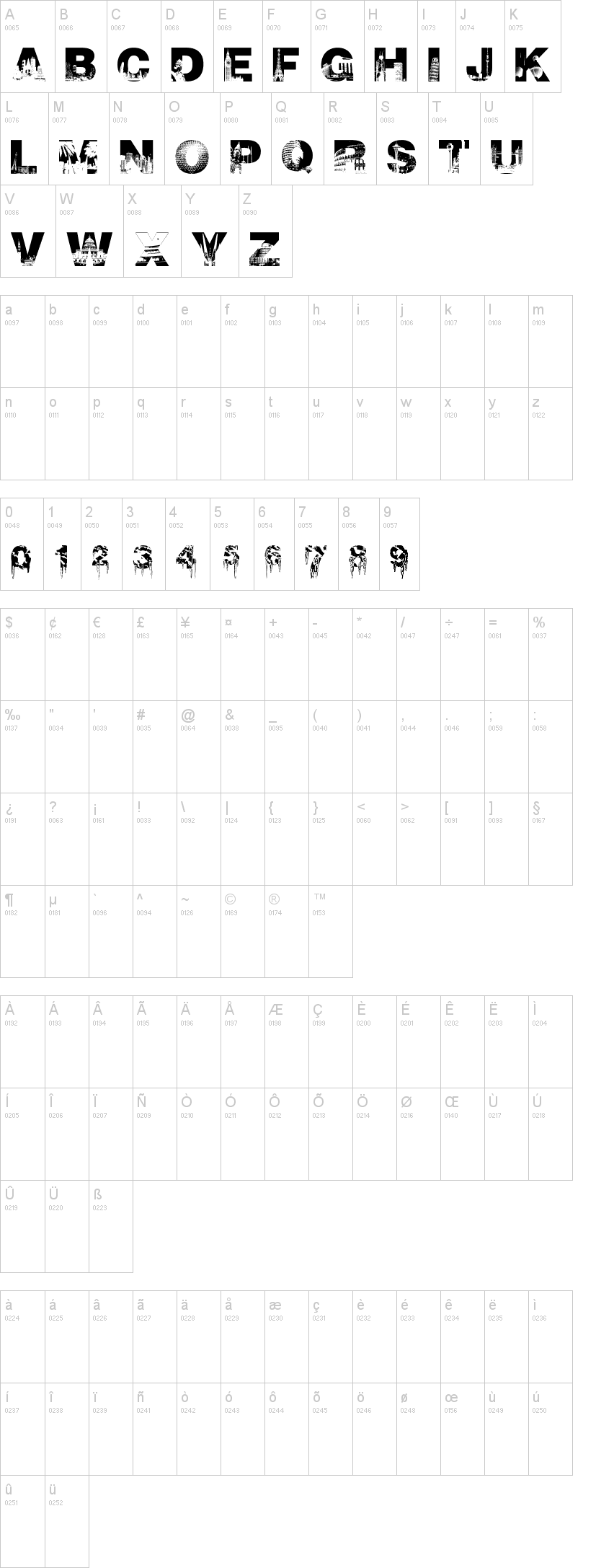
Note of the authorall 26 letters, only Capital letters, Frozen Numbers included, please let me know if you are going to use it for anything commercial or at least give me some credit. hope you enjoy :)I've had a few questions about what city/country each letter stands for:
A-atlanta B-boston C-chicago D-denver E-england F-france G-greece H-hong kong I-italy J-japan K-kuwait towers L-las vegas M-miami N-new york city O-orlando P-philadelphia Q-qatar R-rome S-seattle T-texas U-united kingdom V-venice W-washington dc X-xian(china) Y-yugoslavia Z-new zealand. Thanks again for all the downloads and positive feedback!